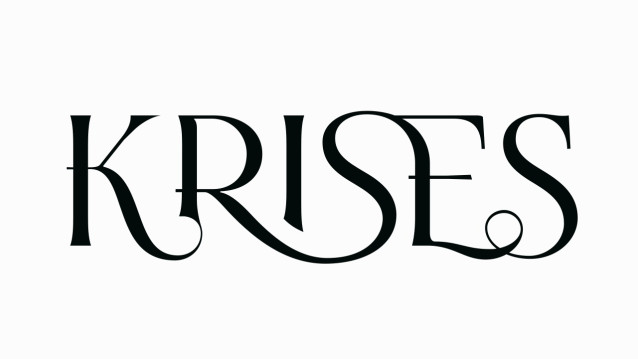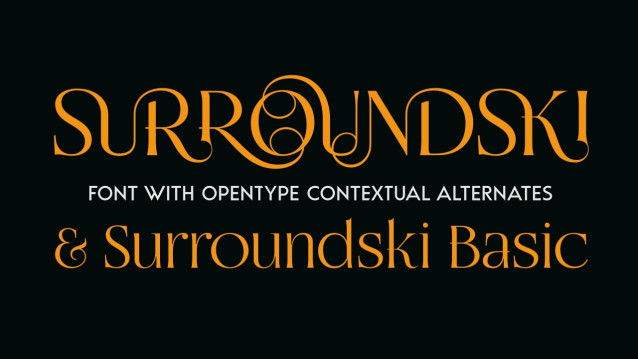
Surroundski Font
Surroundski Font is allCaps typeface with multilingual, contextual alternates (dynamically changing glyphs to enhance text flow)
SurroundskiBasic as an accompanying, classic font with delicate feel, ideal for headlines, short text, logos, packaging and advertising.